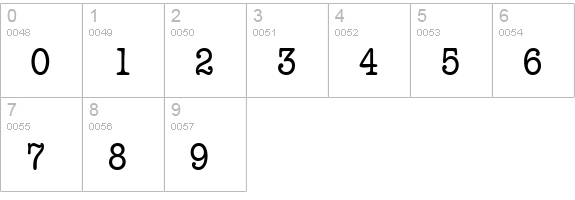
AmerTypeCnd Font Details
AmerTypeCnd font is a modern and stylish typeface that exudes elegance and sophistication. With its sleek lines and balanced proportions, this font is perfect for creating stunning designs that demand attention. Whether you're working on a branding project, a website design, or any other creative endeavor, AmerTypeCnd font is sure to make a lasting impression. The best part? This amazing font is available for free download at FontsMarket.com. So, you can easily add this versatile typeface to your font collection without breaking the bank. Don't miss out on the opportunity to elevate your designs with the timeless beauty of AmerTypeCnd font. Download it today and let your creativity soar!